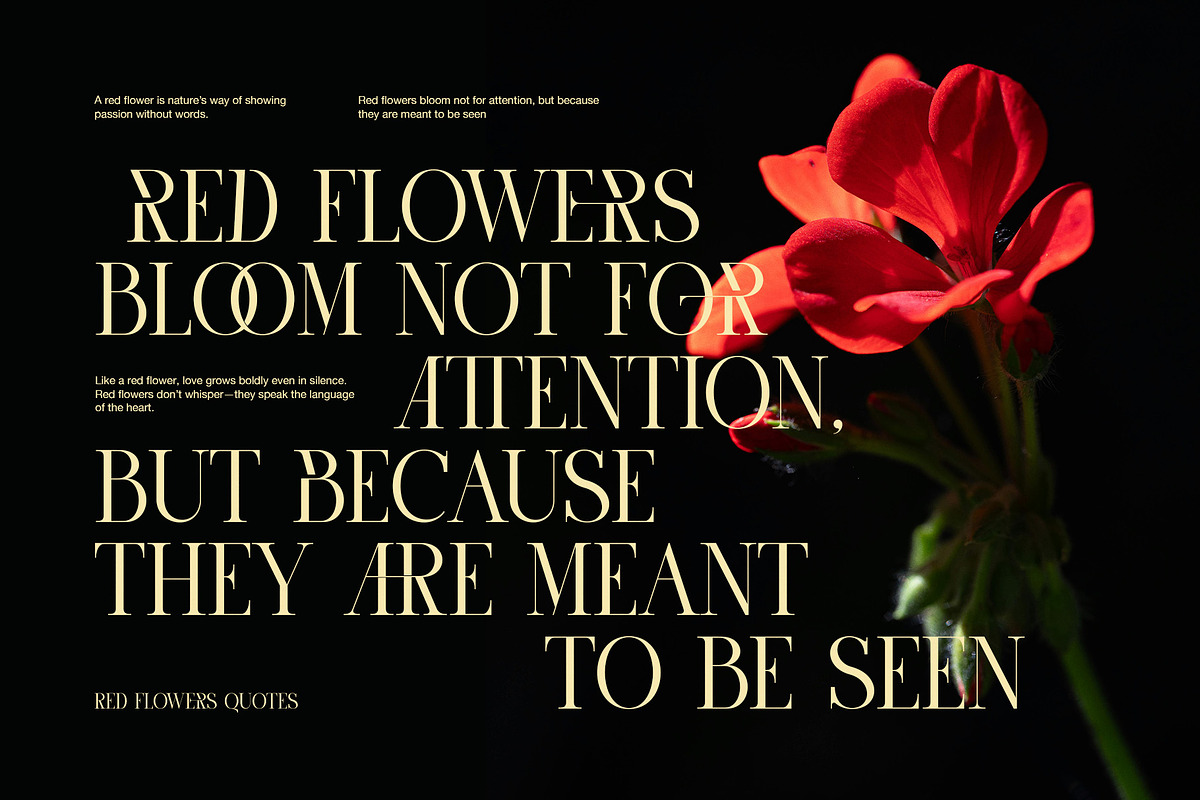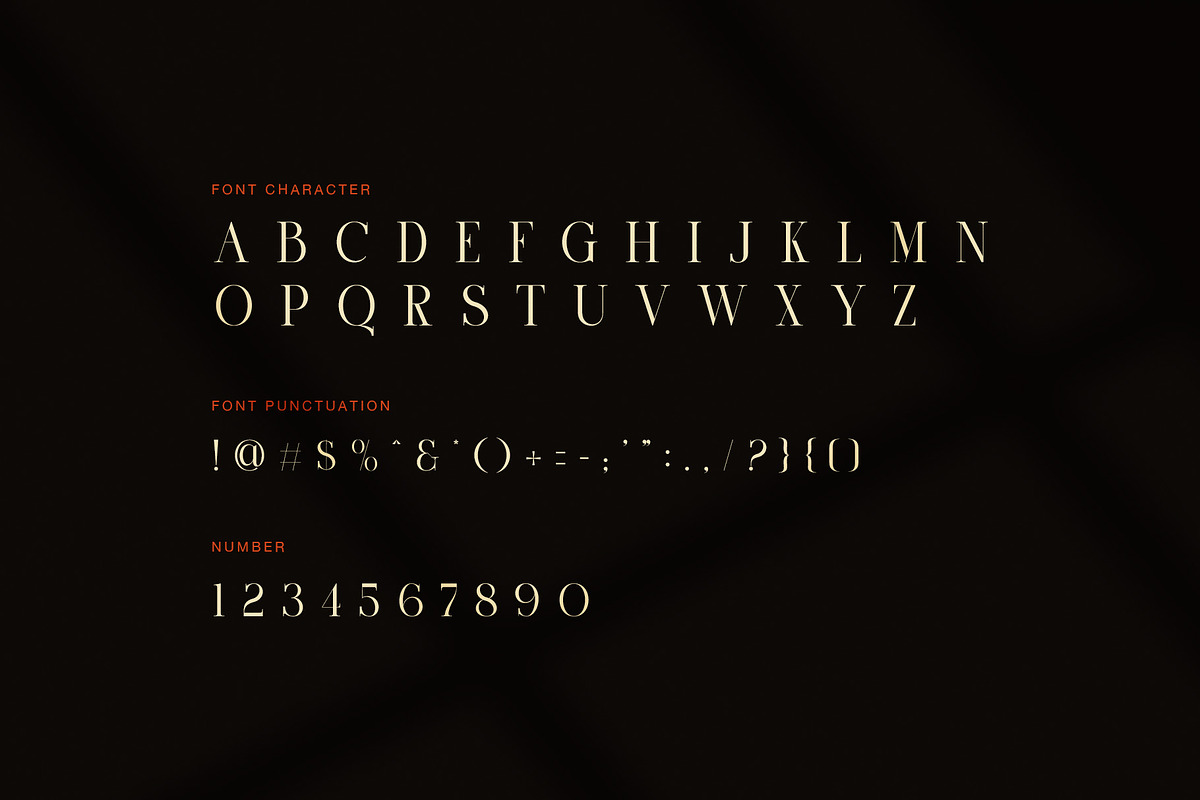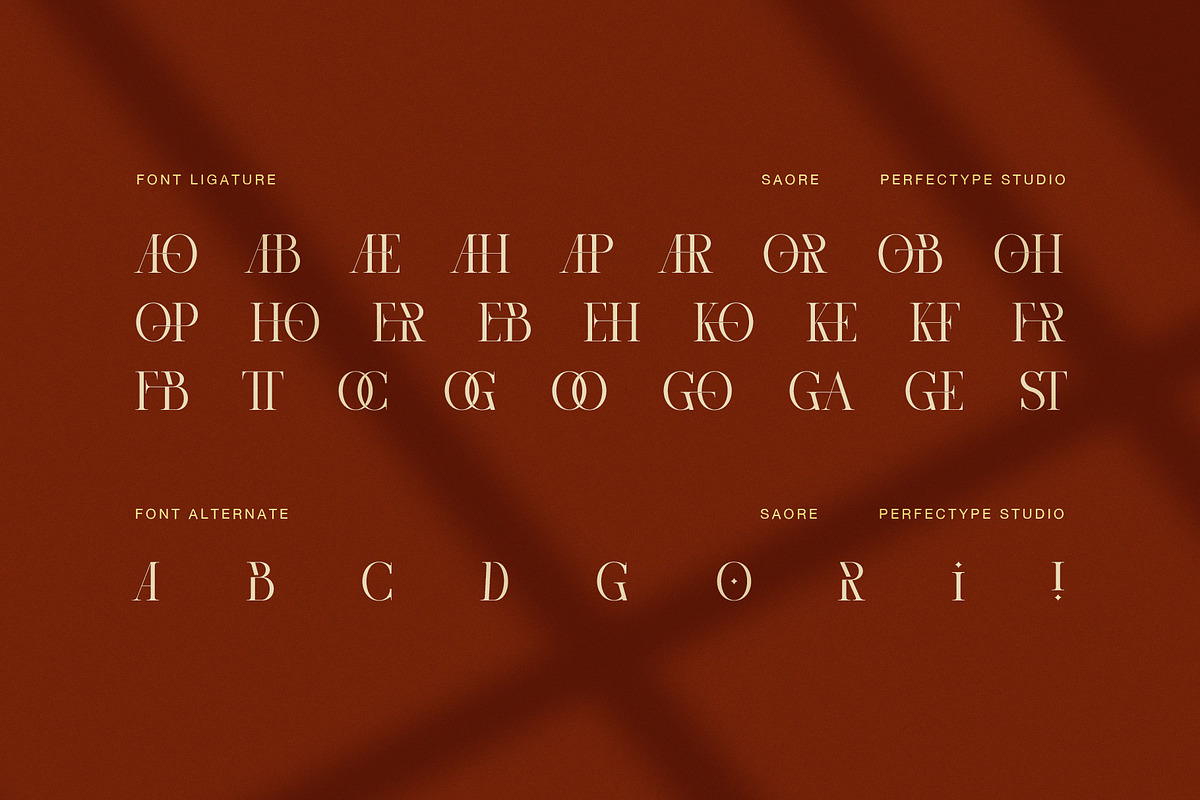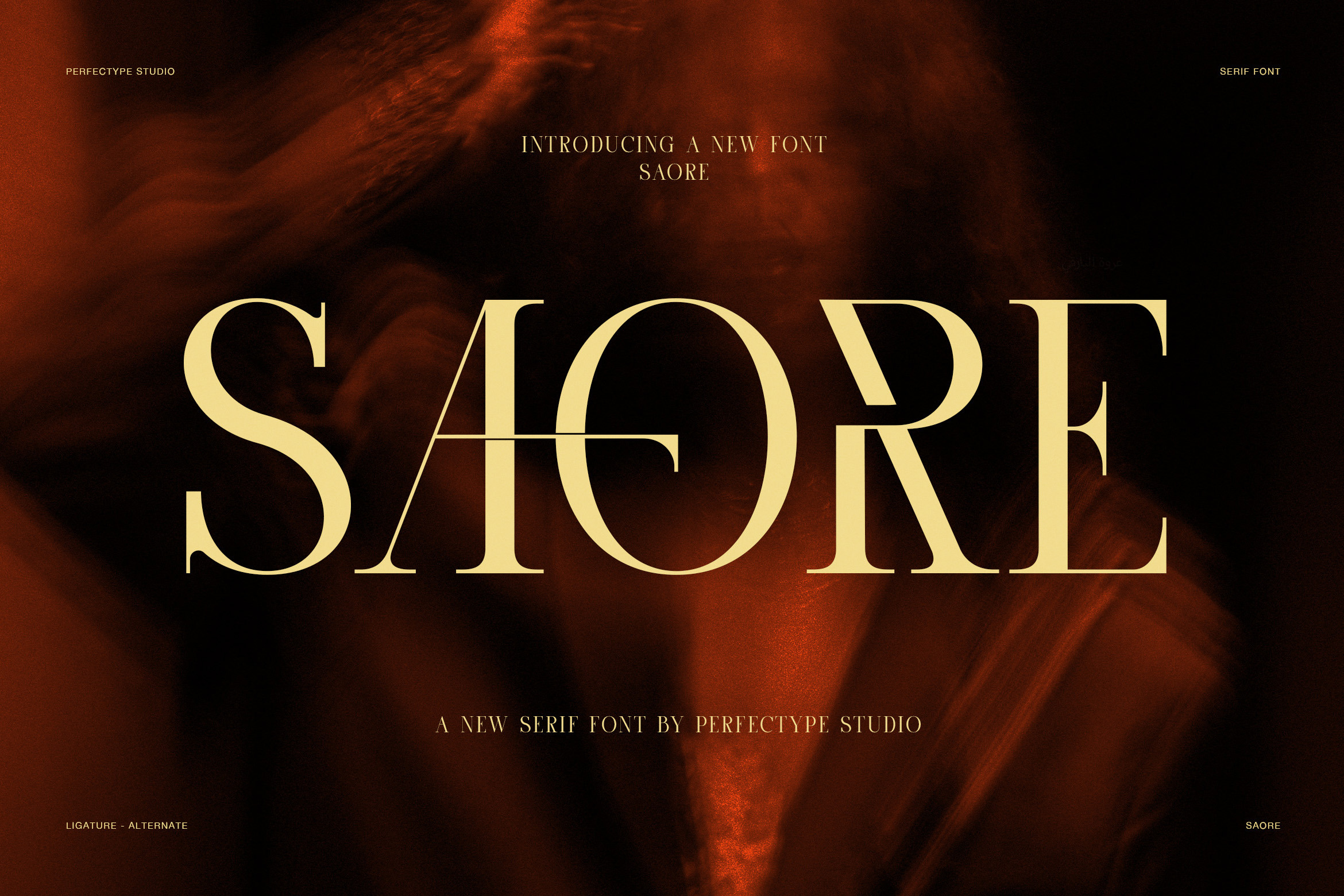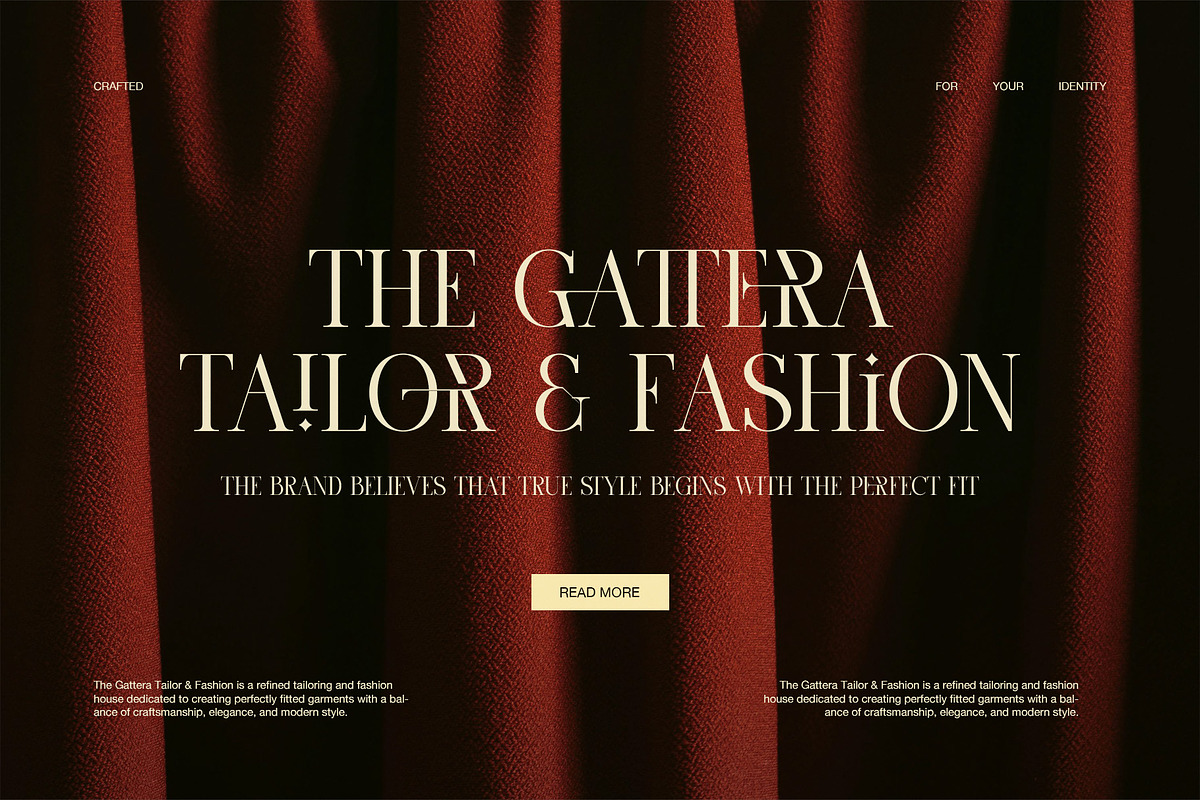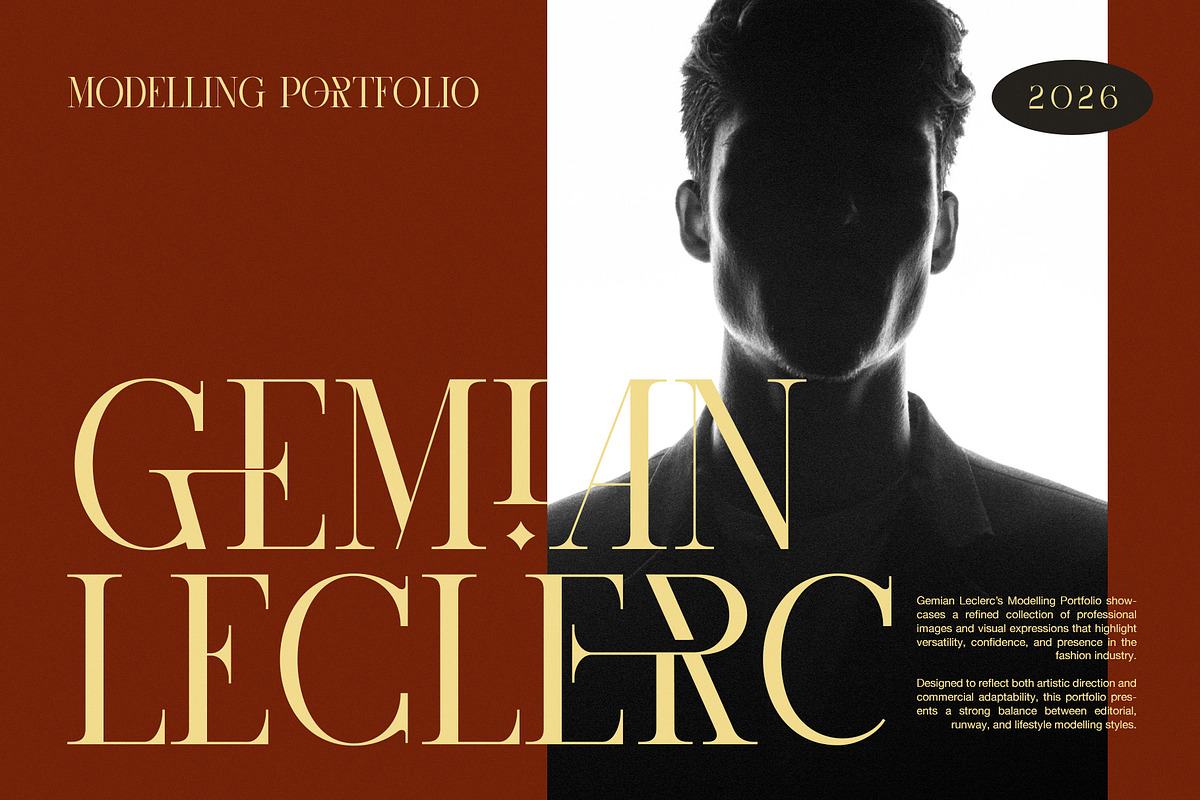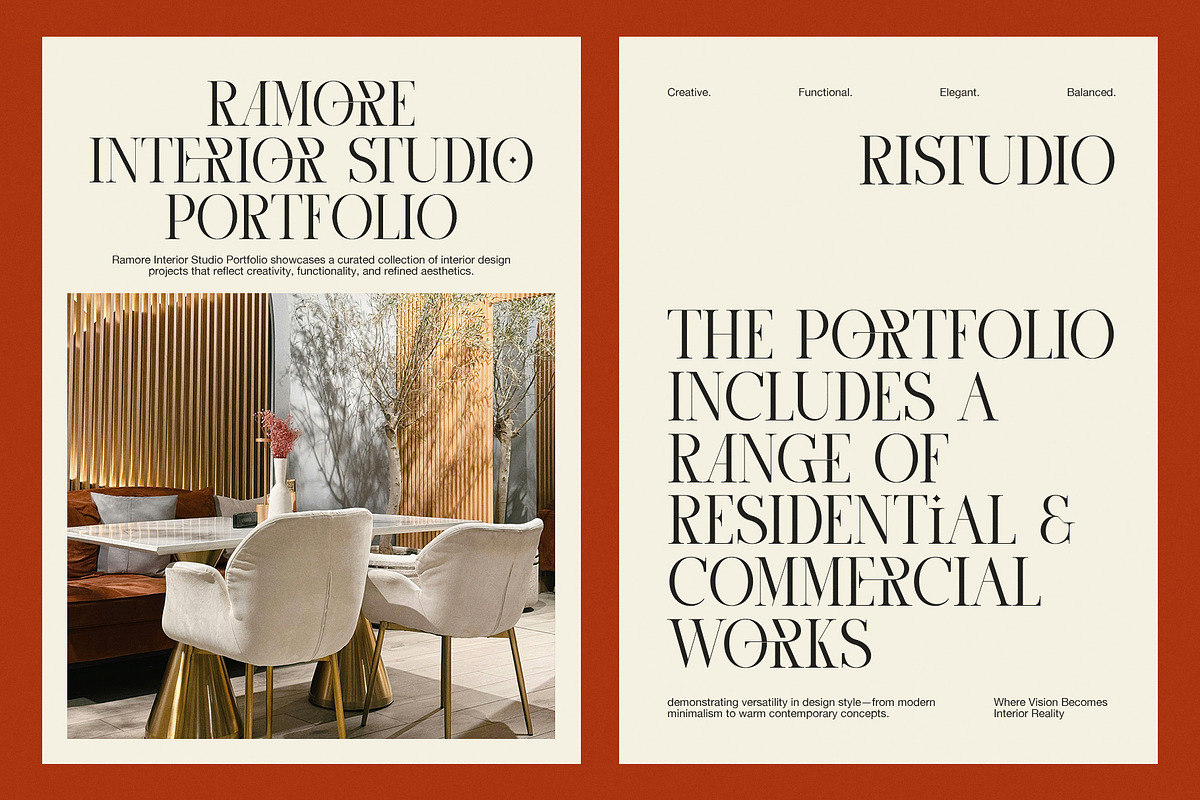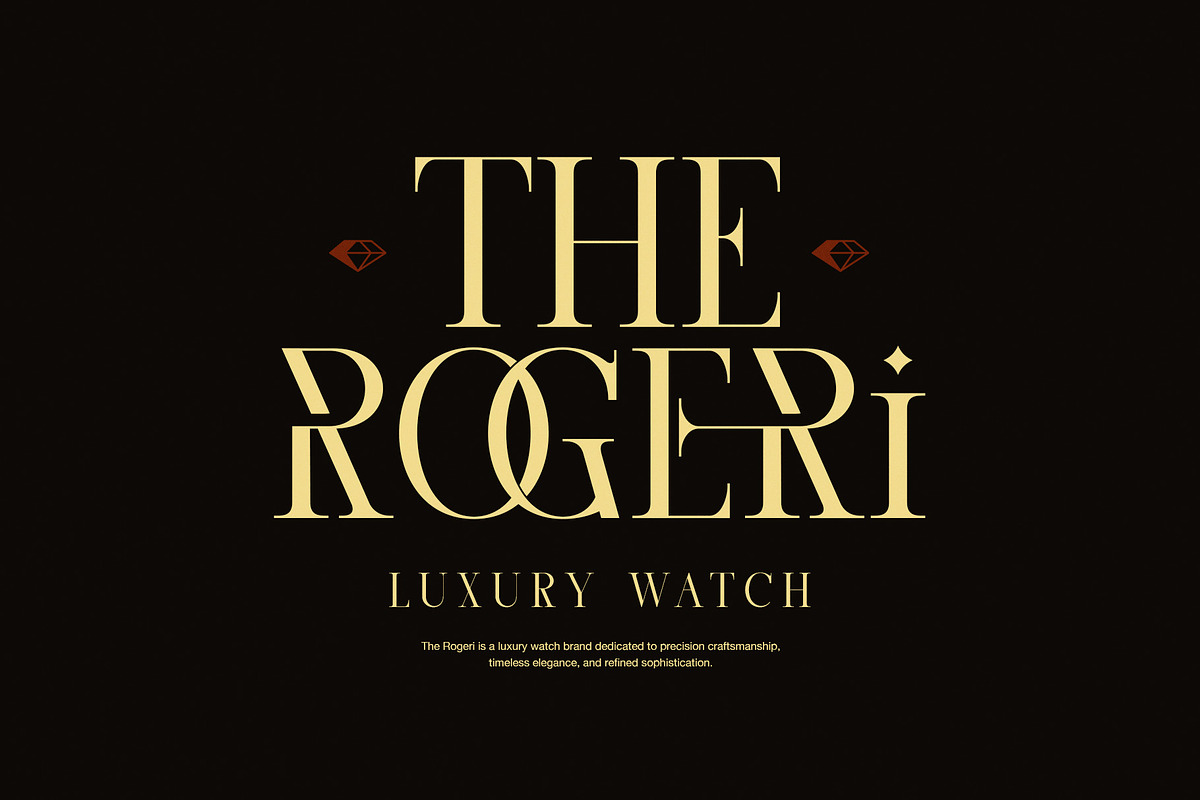
Saore Luxury Ligature Serif Font
Saore is a luxury ligature serif font created for bold, elegant, and high-end design. With sharp contrast, fine hairlines, strong vertical strokes, and classic serif forms, it gives every headline a polished look. At the same time, its clean shapes keep the design fresh and easy to use.
This font has a strong editorial feel. Therefore, Saore works especially well when large type needs to lead the design. Its tall letterforms create a refined look, while the thin details add a sense of style. In addition, the carefully shaped serifs give each word a clear and confident presence.
One of Saore’s key features is its collection of custom ligatures. These letter pairs blend selected characters into stylish forms, helping you create a more unique wordmark. Moreover, the font includes alternate characters that offer extra choices for key letters. As a result, designers can create different looks without changing the main style of the font.
Saore Font Features
Luxury high-contrast serif style
Elegant and clean letter shapes
Custom ligatures for selected letter pairs
Alternate characters for added variety
Uppercase display lettering
Numbers and useful punctuation
Fine hairlines and bold stems
Strong editorial character
Excellent impact at large sizes
Suitable for print and digital projects
Because of its refined style, Saore is a strong choice for fashion brands, luxury labels, watch brands, jewelry, beauty products, and premium packaging. It also fits magazine covers, editorial layouts, posters, wedding designs, hotel branding, and creative advertising. Furthermore, the font can bring a classic yet modern feel to logos and brand names.
Saore is especially effective in short words, large headlines, and statement typography. For example, its high contrast can make a fashion title feel more polished, while its ligatures can give a logo a custom touch. Meanwhile, the alternate letters allow you to adjust the visual rhythm and create a more personal result.
Overall, Saore combines classic serif elegance with a modern fashion edge. Its thin lines, strong shapes, and special letter combinations make it expressive without becoming overly decorative. Therefore, it is ideal for designers who need a luxury serif font with a distinctive character.
Whether you are building a fashion identity, premium product label, editorial project, or elegant logo, Saore gives your typography a confident and memorable voice.